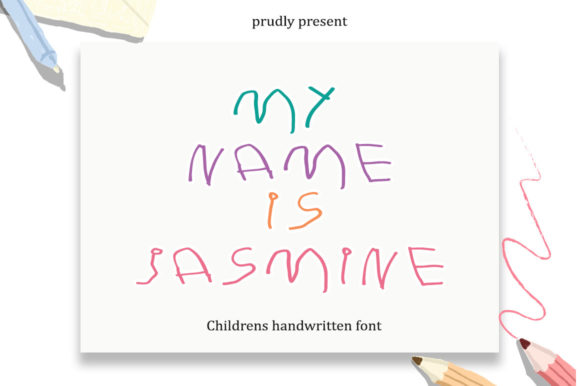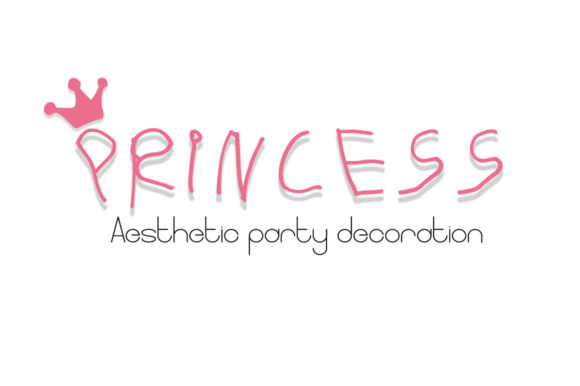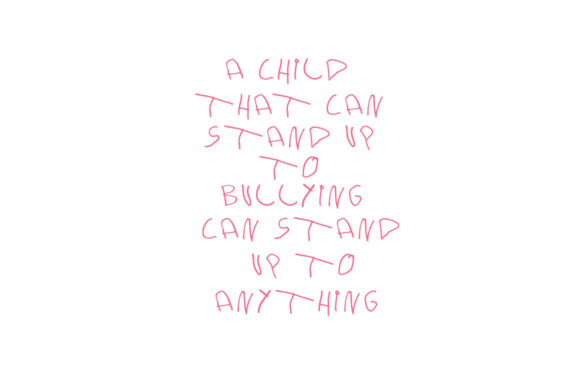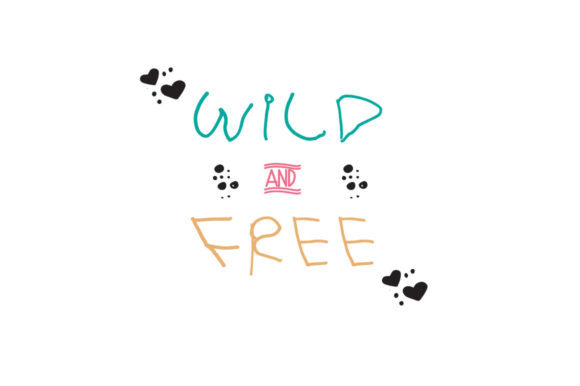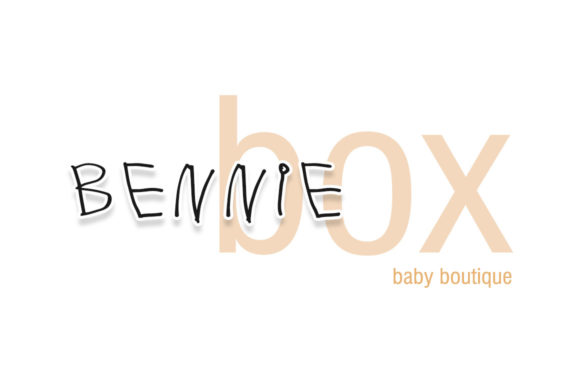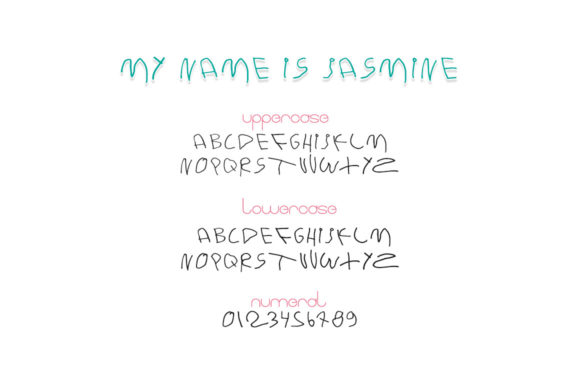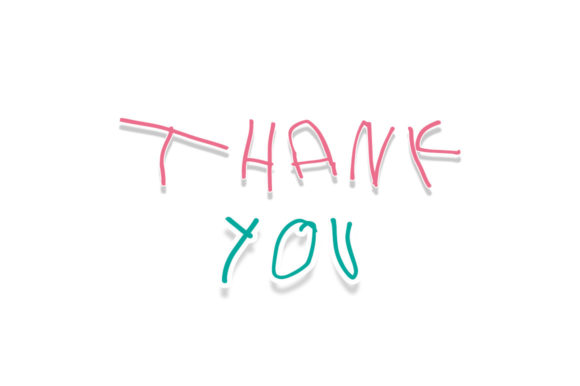
My Name is Jasmine Font
About My Name is Jasmine Font
Introducing “My Name is Jasmine,” a cute and brittle handwritten font that captures the charm and innocence of a child’s handwriting. This delightful font brings a playful and whimsical touch to your designs, making it the perfect choice for various creative projects.
“My Name is Jasmine” gives the impression of being handwritten by a child, with its delicate and brittle strokes. This unique style adds a touch of innocence and nostalgia to your designs, making it ideal for projects that require a playful and youthful feel.
The font’s cute and brittle appearance makes it a great choice for writing letters to Santa, creating children’s book covers, designing playful posters, or adding a touch of whimsy to any creative endeavor. Its childlike quality brings a sense of joy and wonder to your creations, evoking a feeling of innocence and imagination.
The handwritten nature of “My Name is Jasmine” adds a personal and authentic feel to your designs. It feels as if the text was written with a child’s own hand, making it relatable and endearing. This font is perfect for adding a touch of individuality and character to your projects.
Whether you’re creating greeting cards, party invitations, children’s book illustrations, or any other design that requires a touch of innocence and playfulness, “My Name is Jasmine” will bring your ideas to life with its cute and brittle style.
Embrace the charm of “My Name is Jasmine” and let it add a dose of innocence and whimsy to your creative projects. Its childlike handwriting and delicate strokes will create a memorable and endearing experience for your audience.
In conclusion, “My Name is Jasmine” is a cute and brittle handwritten font that captures the essence of a child’s handwriting. Its playful and whimsical style is perfect for adding a touch of innocence to your designs, making it an ideal choice for various creative projects. Embrace the charm of “My Name is Jasmine” and let it bring joy and wonder to your creations.